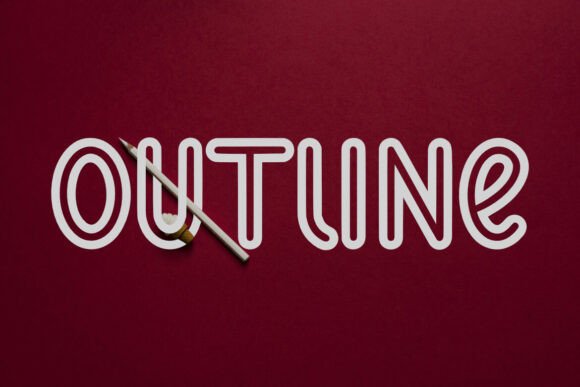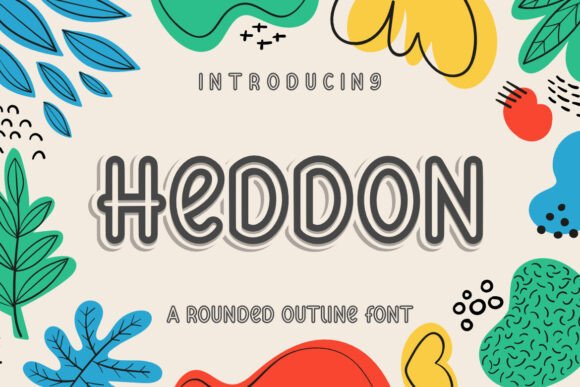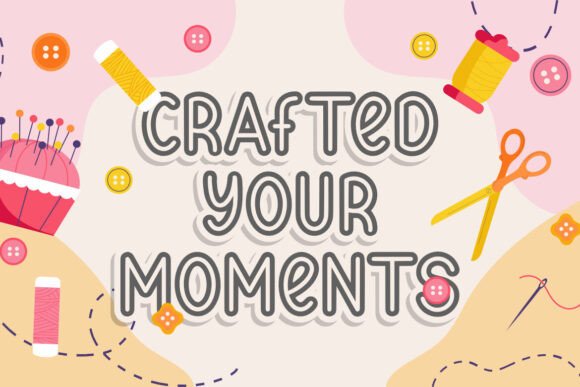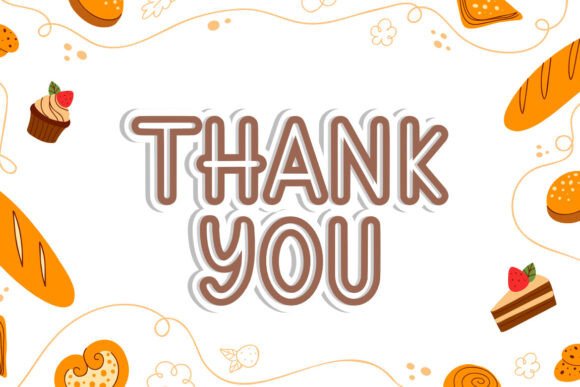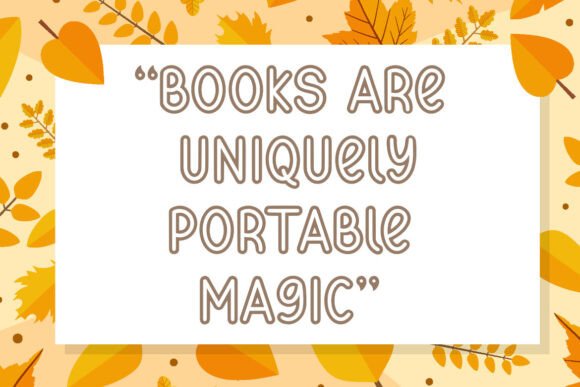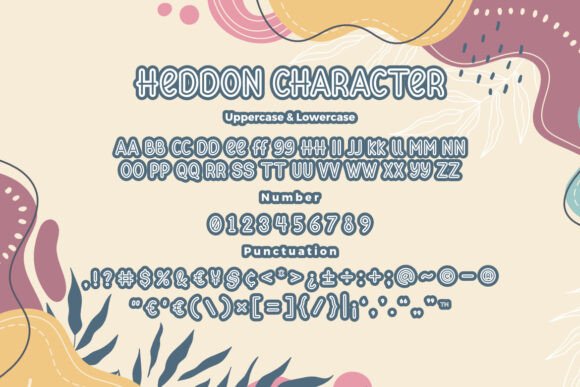
Have you ever found yourself staring at a blank page, trying to come up with the perfect design concept, only to have a spark of creativity strike at the most unexpected moment? That’s exactly what happened to many designers when they discovered the Heddon Font. This stunning outline rounded font is more than just a typographic masterpiece – it’s a game-changer for anyone looking to elevate their visual content.
With its high premium quality and versatility, the Heddon Font is perfect for a wide range of applications, from eye-catching flyers and posters to sleek packaging and merchandise. Whether you’re a seasoned designer or just starting out, this font is sure to be a valuable addition to your toolkit.
Heddon Font Key Features
- Font Family: Heddon Font is a sans-serif font family, ideal for digital and print media applications.
- Character Set: The Heddon Font family includes a comprehensive set of characters, including uppercase and lowercase letters, numerals, punctuation marks, and special characters.
- Unique Characteristics: Heddon Font is designed to be highly legible and versatile, with a clean and modern aesthetic that makes it suitable for a wide range of applications, including corporate branding, advertising, and editorial content.
- Font Styles: The Heddon Font family includes multiple font styles, including Light, Regular, Medium, Bold, and Black, allowing designers to choose the perfect font weight for their project.
Heddon Font Review
Overall, I was quite excited to dive into the Heddon Font and see what it had to offer. While it’s not a revolutionary font, it has its strengths and weaknesses that I’d like to share with you.
- Modern aesthetic: The Heddon Font has a sleek, modern feel that would be perfect for contemporary designs, such as digital products or minimalist websites.
- Highly legible: The font is well-spaced and easy to read, making it suitable for long blocks of text.
- Wide range of languages: The Heddon Font supports a wide range of languages, including Latin, Cyrillic, and Greek alphabets.
- Limited expressiveness: The font may come across as a bit too generic and lacking in personality, which could be a drawback for designers looking for a font that stands out.
- No bold or italic weights: The font is only available in a single weight, which may limit its versatility in certain design applications.
Overall, the Heddon Font is a solid, dependable choice for designers who need a clean and modern font for their projects. While it may not be the most exciting or expressive font out there, it gets the job done and is well-suited for a wide range of design applications.
Use Heddon Font to create a consistent brand identity across all your designs.
Pair Heddon Font with other fonts to create a unique and eye-catching visual style.
Experiment with different font sizes, styles, and colors to add depth and interest to your designs.
Common Use Cases for Heddon Font
Heddon Font is perfect for:
Creating professional-looking logos and branding materials.
Designing eye-catching advertisements and marketing materials.
Developing engaging presentations and reports.
Adding a touch of elegance to business cards, brochures,